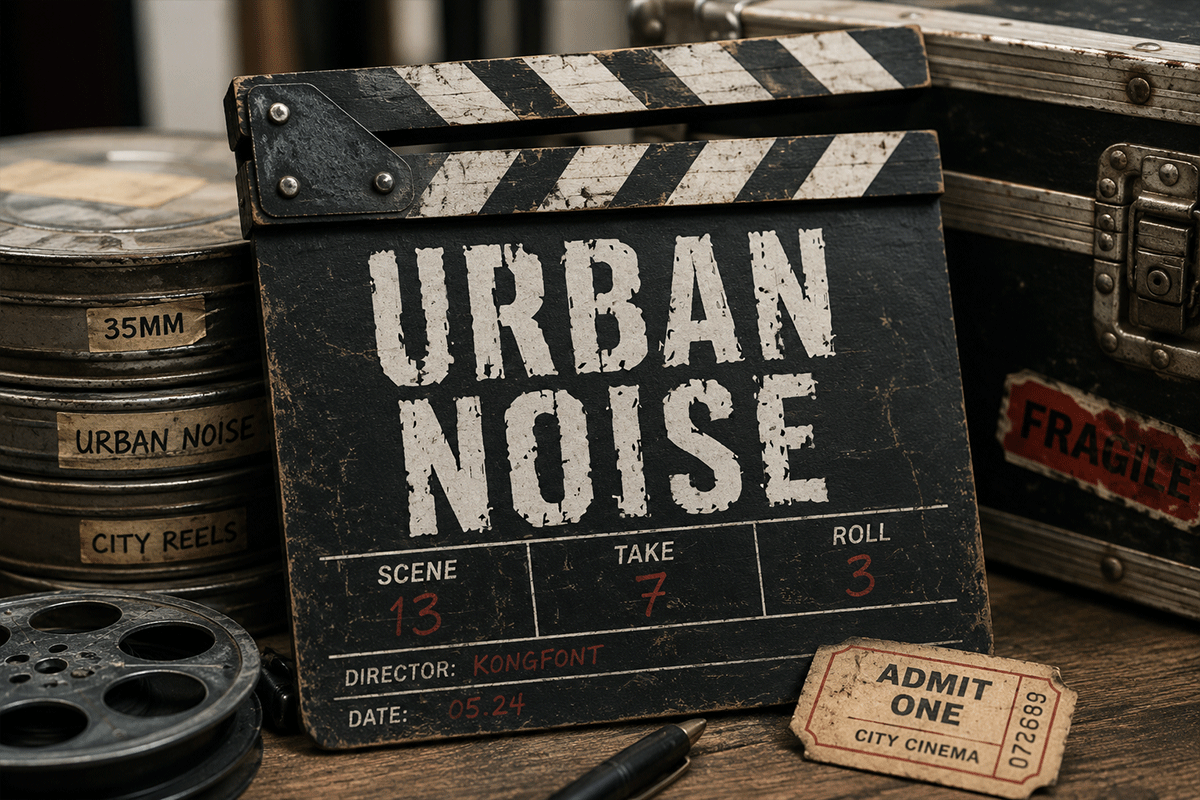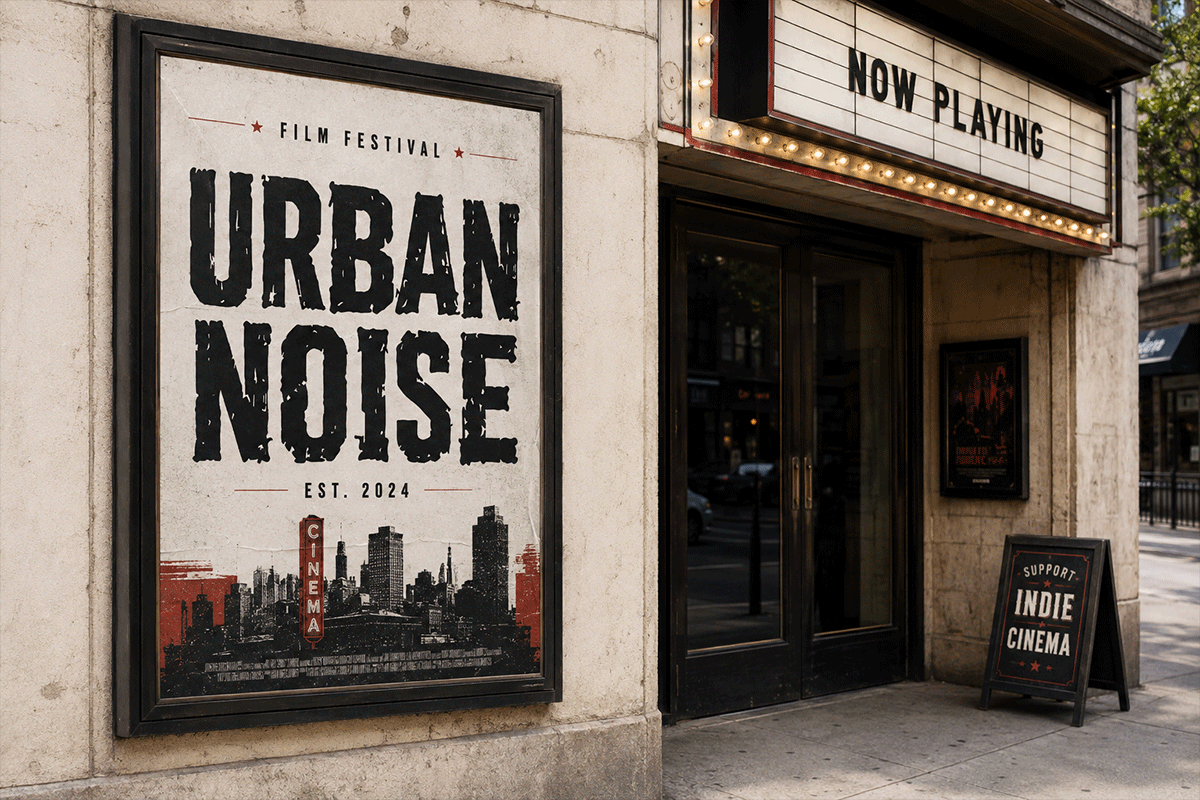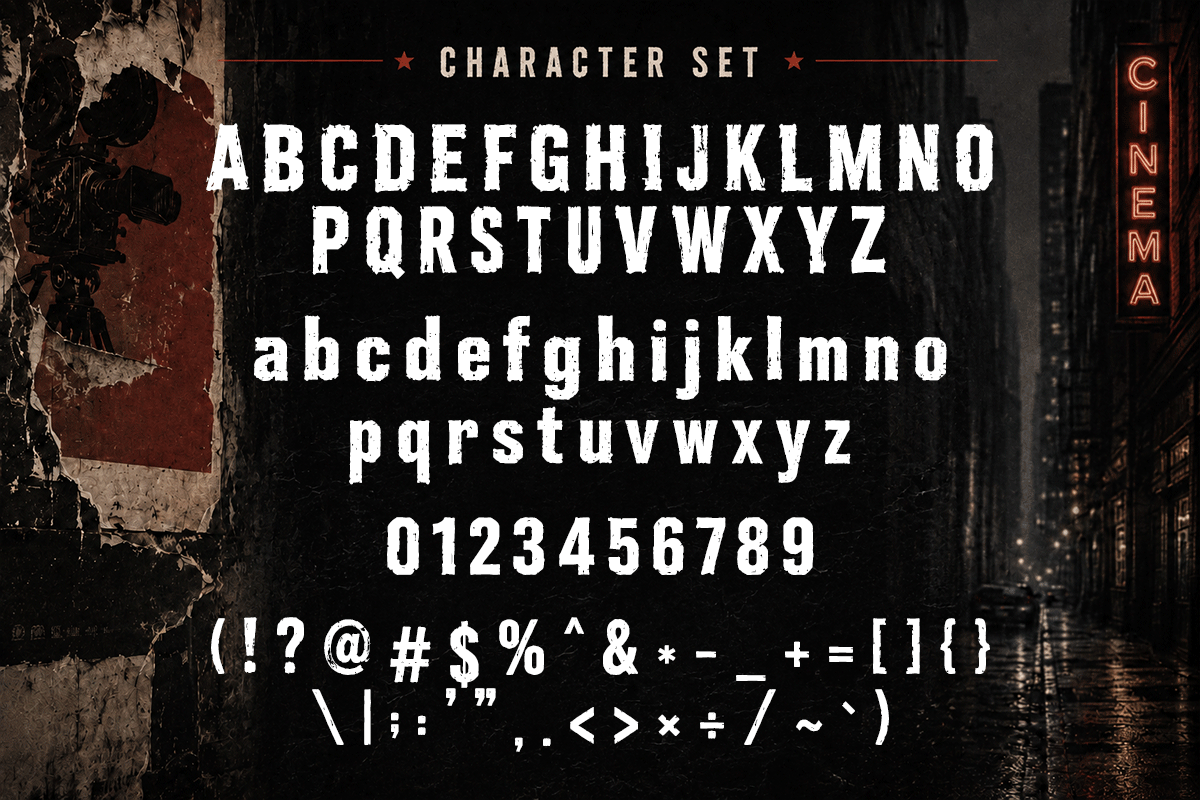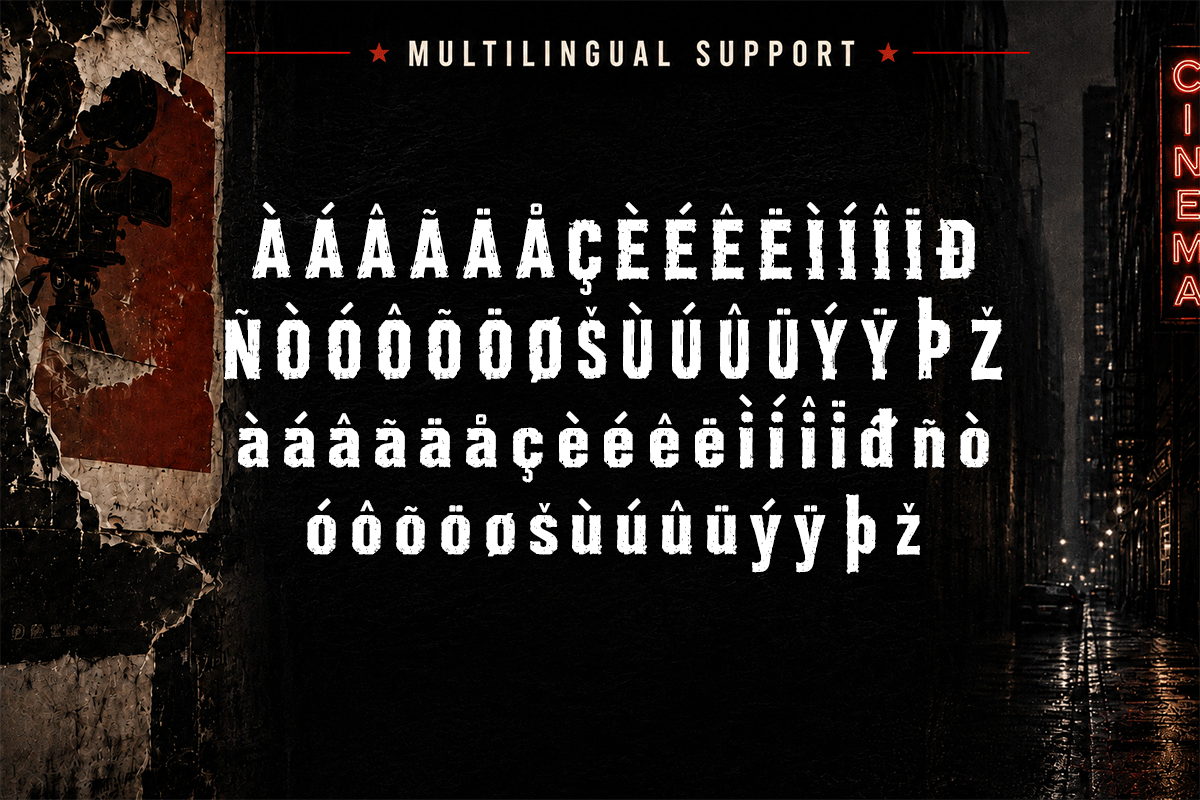
Urban Noise A Modern Rough Display Font is a rugged display typeface with bold letterforms, distressed textures, and a raw handcrafted appearance. Its worn edges and heavy construction give every word a powerful, gritty character that immediately stands out.
Inspired by urban streets, underground posters, vintage cinema, grunge graphics, and distressed print textures, Urban Noise A Modern Rough Display Font is perfect for movie posters, film titles, album covers, streetwear, event graphics, editorial headlines, T-shirts, packaging, music artwork, social media campaigns, logos, and bold advertising.
The rough detailing adds an authentic aged and imperfect feel, while the strong proportions keep the typography clear and impactful. It works especially well in large-scale compositions where its texture and cinematic personality can become the main visual focus.
Urban Noise A Modern Rough Display Font is an excellent choice for designers looking for a typeface that feels bold, raw, gritty, rebellious, vintage, and cinematic.